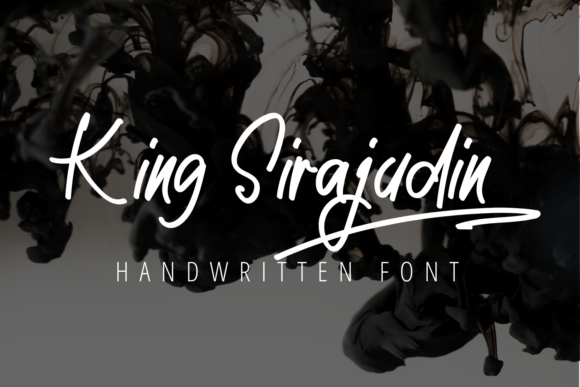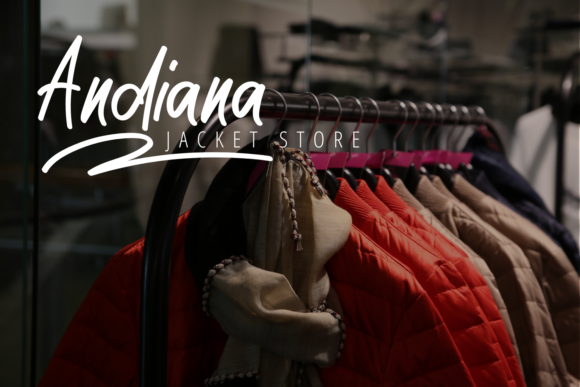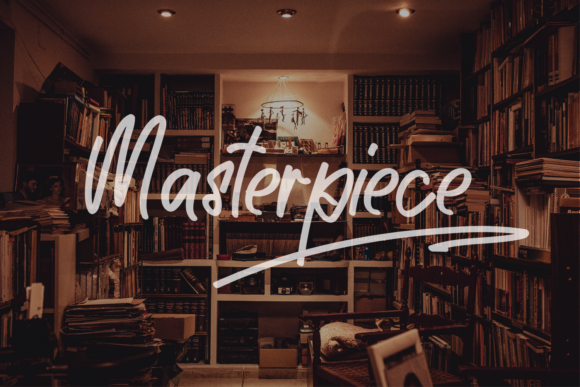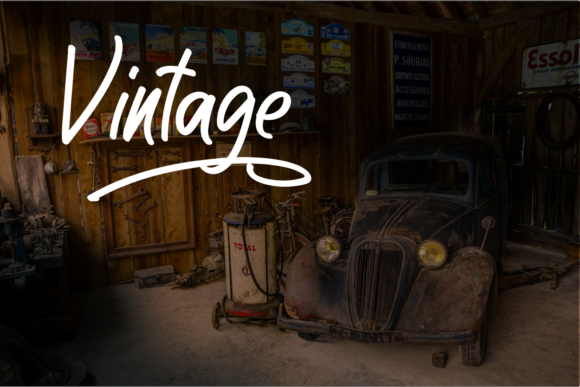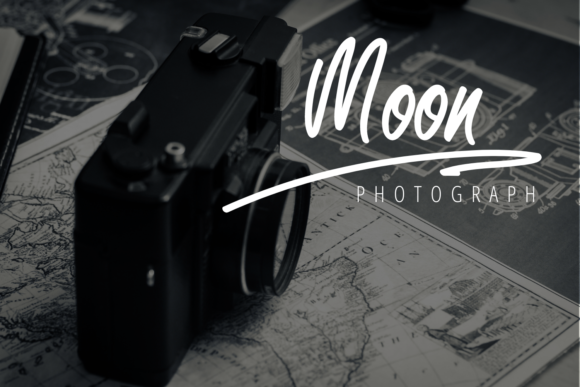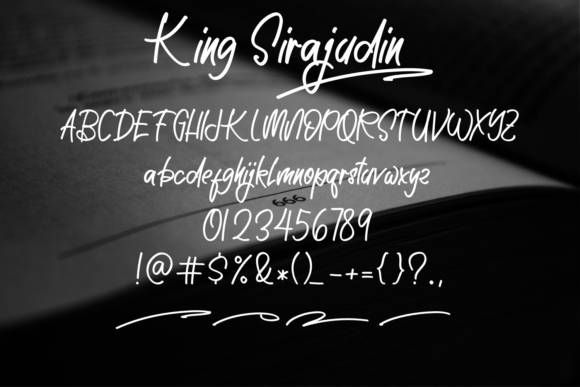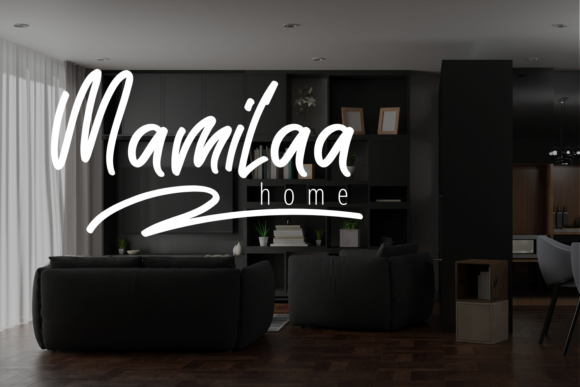
King Sirajudin Font
About King Sirajudin Font
King Sirajudin is a lovely and timeless handwritten font. It is the best choice for creating eye catching logos, branding and quotes. Every letter has a unique and beautiful touch, which will make your design come alive!